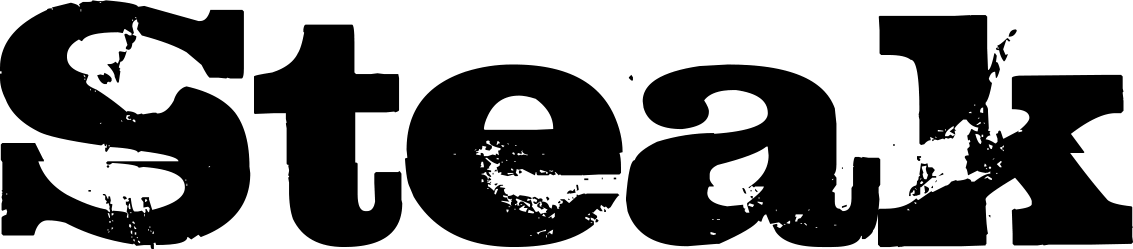
Steak Font
Designed bySegments Design
It’s time to try this serif block font and share a classic vibe with the readers. Steak comes with almost bold letters and can be used for titles, posters, books, and whatnot. Give it a chance and enjoy the result. To find more grunge fonts, you better check our limitless website.